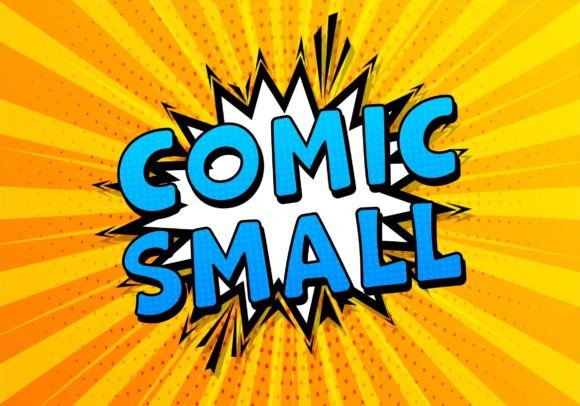
Introducing Comic Small Font: The Perfect Addition to Your Font Library
Are you a designer or crafter looking for a font that can add a touch of drama and personality to your creations? Look no further than Comic Small Font, a pop-art, retro-styled display font that’s perfect for comic titles, bold statements, and more. In this article, we’ll dive into the world of Comic Small Font, exploring its features, benefits, and uses, and showing you why it’s a must-have addition to your font library.
What is Comic Small Font?
Comic Small Font is a display font designed to bring a touch of nostalgia and playfulness to your designs. With its bold, chunky lines and retro aesthetic, it’s the perfect font for creating eye-catching titles, headings, and emphasis text. Whether you’re working on a comic book, a poster, or a social media graphic, Comic Small Font is sure to make your text stand out.
Key Features of Comic Small Font
So what makes Comic Small Font so special? Here are just a few of its key features:
- Pop-art, retro style: Comic Small Font is inspired by the classic comic books of the 1950s and 60s, with a bold, colorful aesthetic that’s sure to bring a smile to your face.
- Bold and chunky lines: The font’s bold lines and chunky letterforms make it perfect for creating eye-catching titles and headings.
- Highly legible: Despite its bold style, Comic Small Font is highly legible, even at small sizes.
- Versatile: Comic Small Font can be used for a wide range of projects, from comic books and posters to social media graphics and more.
Benefits of Using Comic Small Font
So why should you choose Comic Small Font for your next project? Here are just a few benefits of using this amazing font:
- Adds personality to your designs: Comic Small Font is a unique and eye-catching font that’s sure to add a touch of personality to your designs.
- Perfect for creating emphasis: The font’s bold style makes it perfect for creating emphasis text, such as headings, titles, and calls-to-action.
- Easy to use: Comic Small Font is a simple, straightforward font that’s easy to use, even for designers who are new to working with fonts.
Uses for Comic Small Font
So what can you use Comic Small Font for? The possibilities are endless! Here are just a few ideas to get you started:
- Comic books and graphic novels: Comic Small Font is perfect for creating bold, eye-catching titles and headings for comic books and graphic novels.
- Posters and flyers: The font’s bold style makes it perfect for creating posters and flyers that need to grab attention.
- Social media graphics: Comic Small Font is a great choice for social media graphics, such as Facebook posts, Instagram captions, and more.
- Logos and branding: The font’s unique style makes it a great choice for logos and branding projects that need to stand out.
In conclusion, Comic Small Font is a pop-art, retro-styled display font that’s perfect for designers and crafters looking to add a touch of drama and personality to their creations. With its bold, chunky lines and highly legible design, it’s the perfect font for comic titles, bold statements, and more. Whether you’re working on a comic book, a poster, or a social media graphic, Comic Small Font is sure to be a valuable addition to your font library.